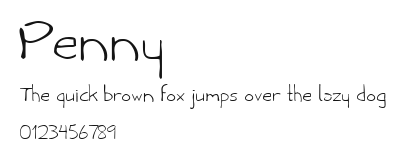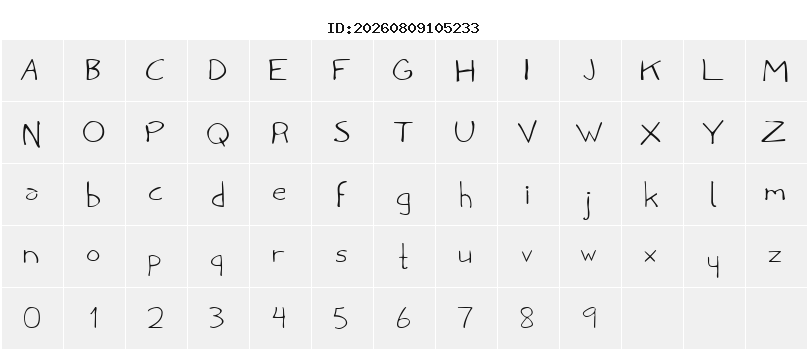
• Font Name: Penny
• Full Font Name: Penny
About Penny.ttf
Penny.ttf is a modern, elegant sans-serif font designed for ultimate readability and visual harmony. Perfect for branding, headlines, web design, and print materials.